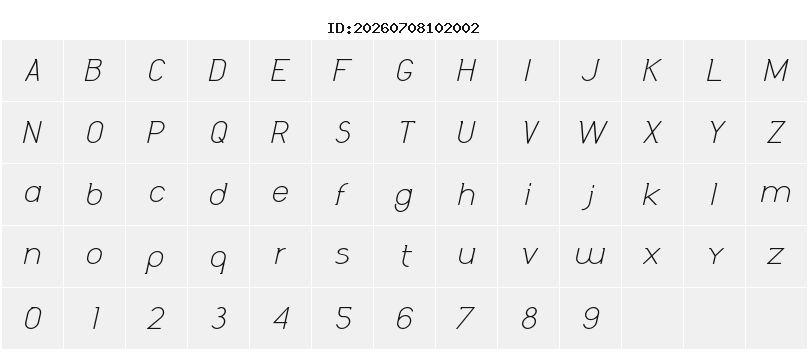
• Font Name: Daniela Italic Bold
• Font Style: Italique
About Daniela Italic Bold.ttf
Daniela Italic Bold.ttf is a modern, elegant sans-serif font designed for ultimate readability and visual harmony. Perfect for branding, headlines, web design, and print materials.